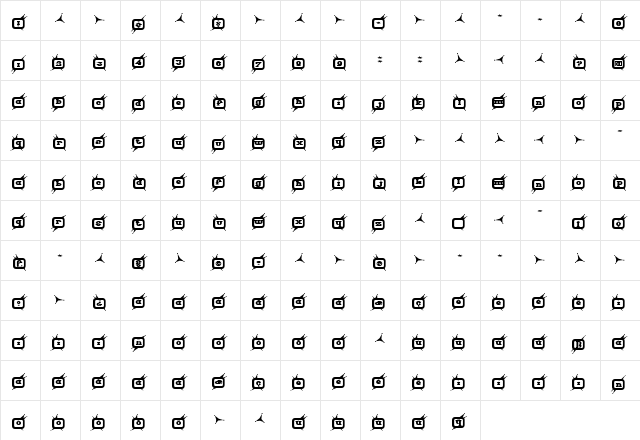
Technicolor Regular
Design Context for Technicolor Typeface
Technicolor channels digital-age aesthetics through its sharp, structured letterforms — ideal for brands that want to signal innovation.
Pro Tip: Use Technicolor in combination with a neutral sans for body text. Let it define the brand voice in headlines while keeping reading comfortable elsewhere.